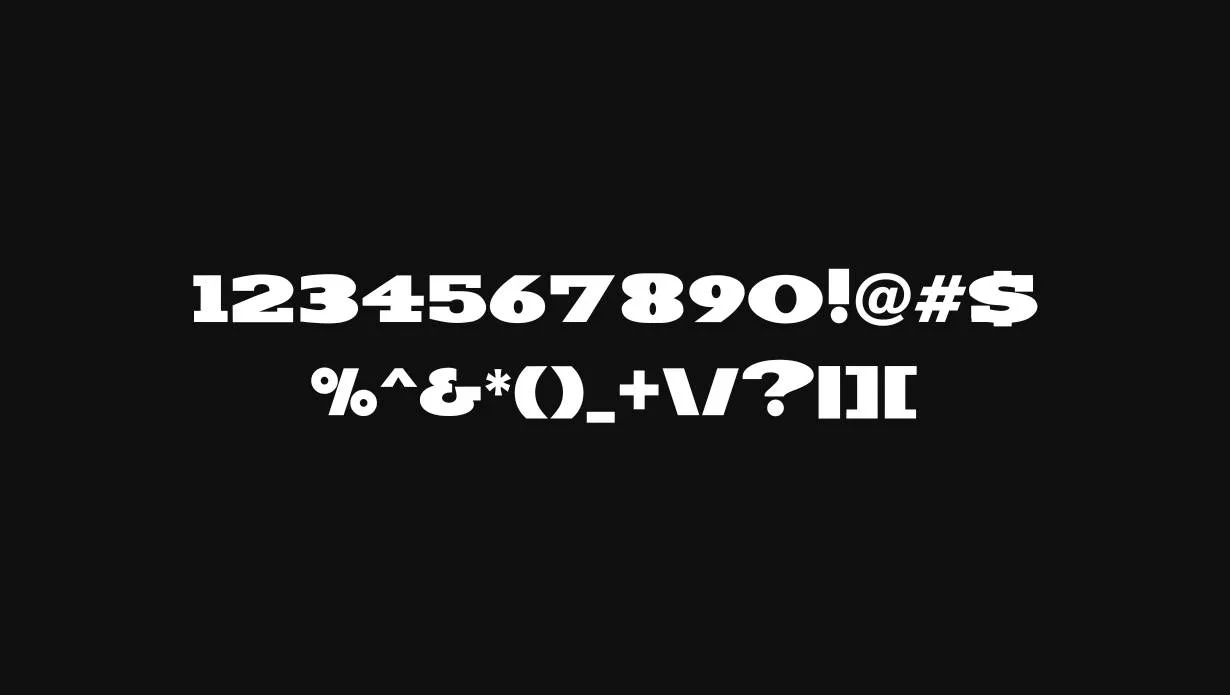
Hundo Font is available under the category of Serif font that was crafted by Sharkshock along with TTF and OTF formats. It comes with cleaner glyphs, kerning, spacing, and 232 unique characters.